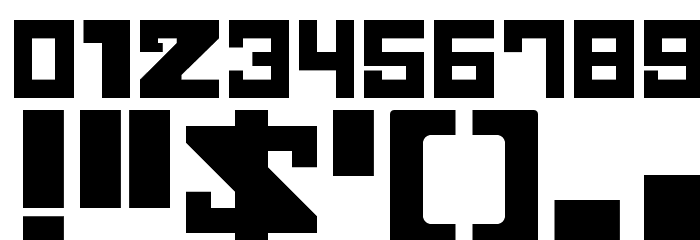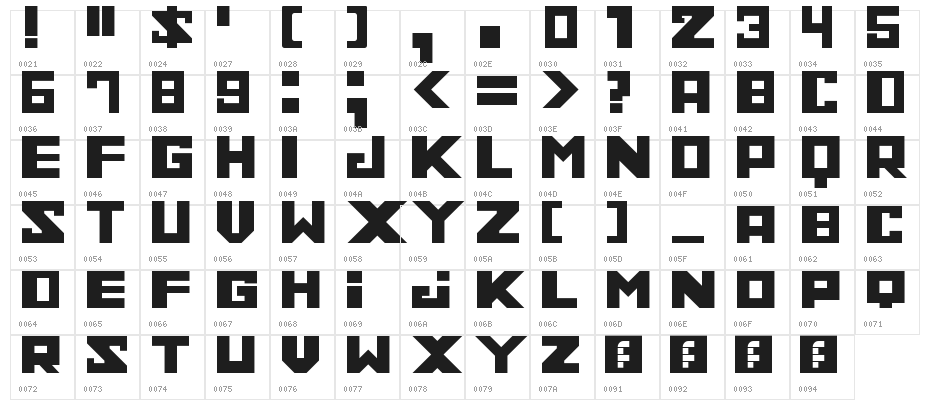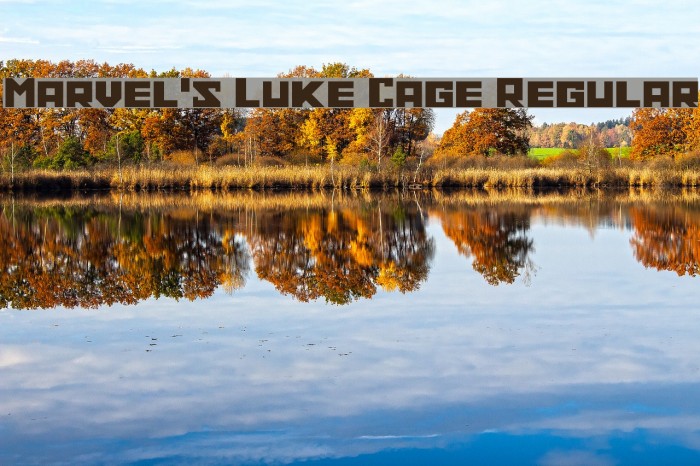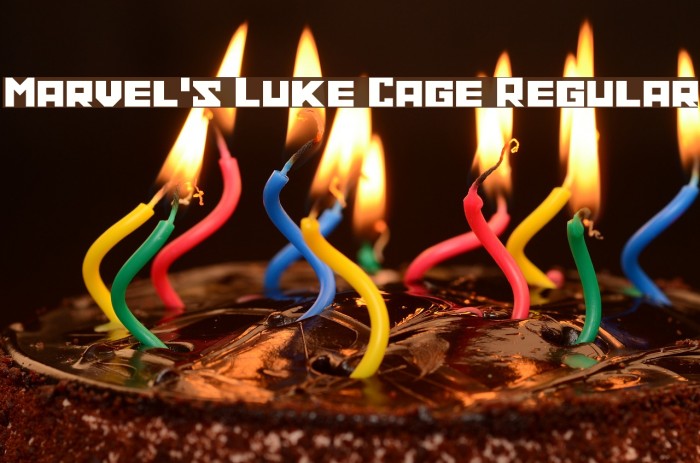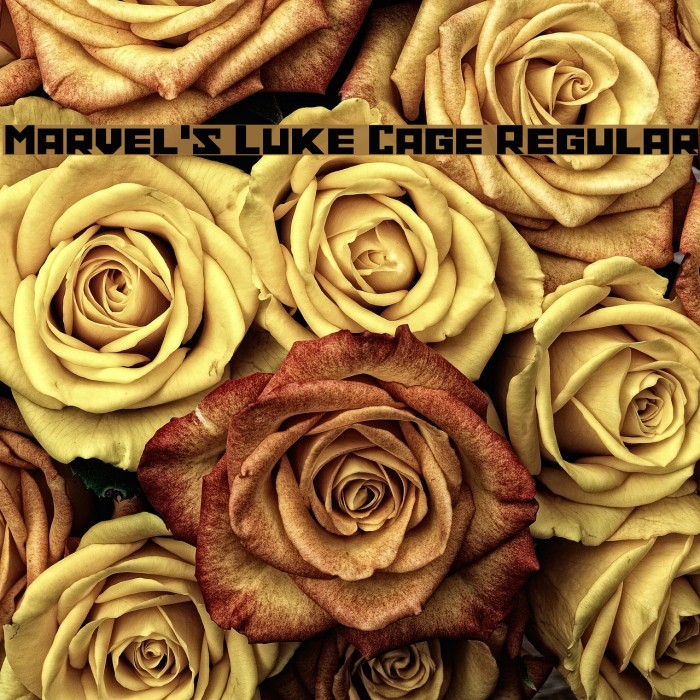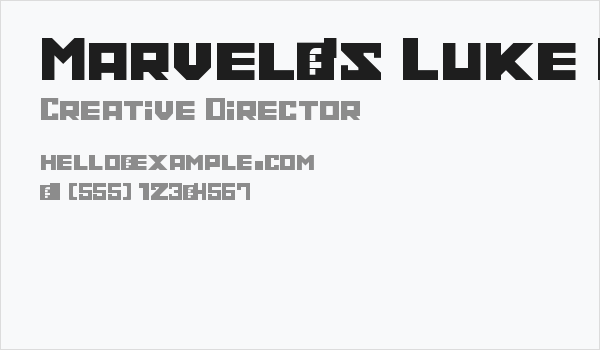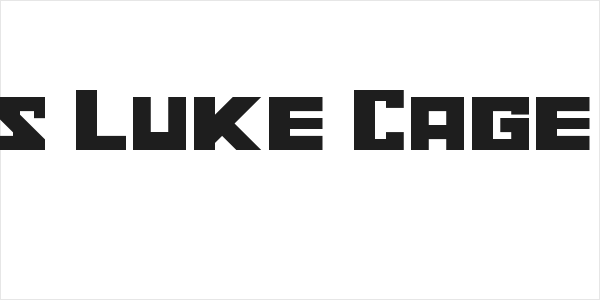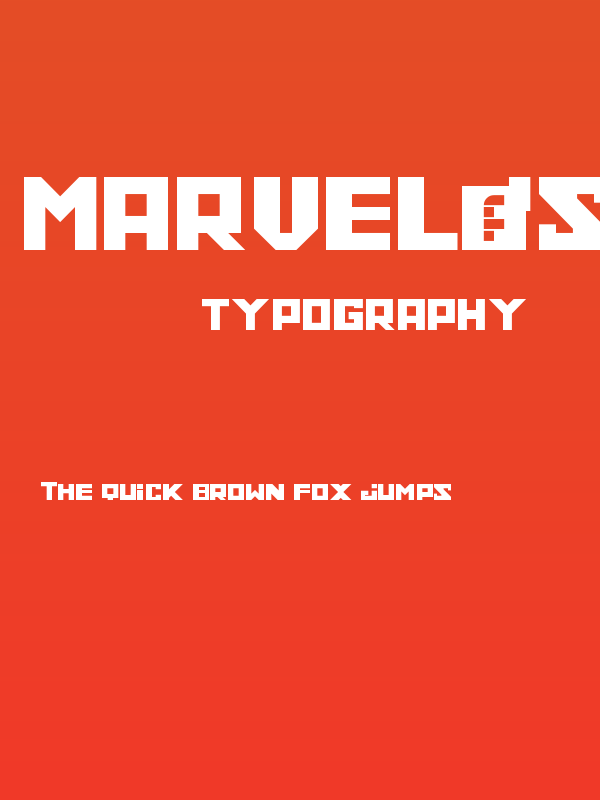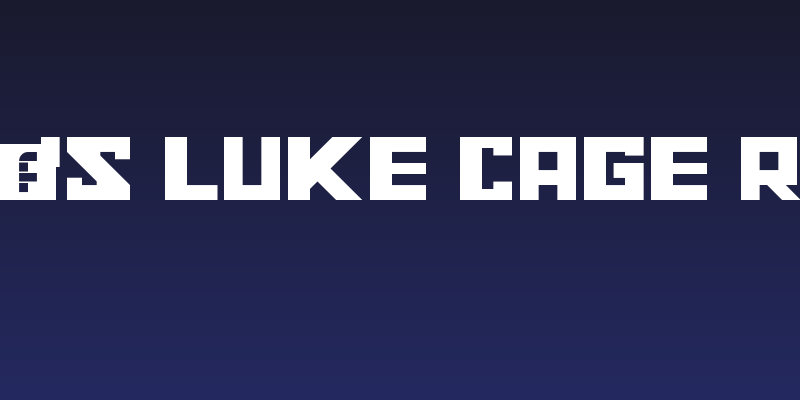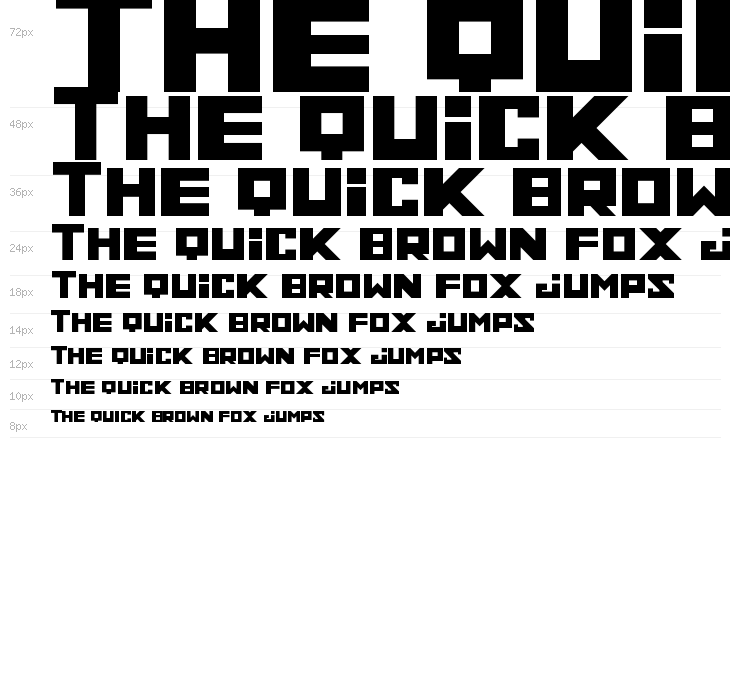
Marvel's Luke Cage Regular Font
Marvel's Luke Cage Regular Description
This font features a bold, geometric design with strong, angular lines and a solid presence. The uppercase letters are blocky and robust, giving a sense of strength and stability. The lowercase letters maintain the same boldness, with slight variations to distinguish them from their uppercase counterparts. Numbers and special characters follow the same design principles, ensuring consistency across all elements. The font's style is reminiscent of comic book aesthetics, making it suitable for projects that require a powerful and dynamic visual impact.
Proposed ProjectsIdeal for comic book titles, posters, logos, and any design requiring a strong, impactful presence.